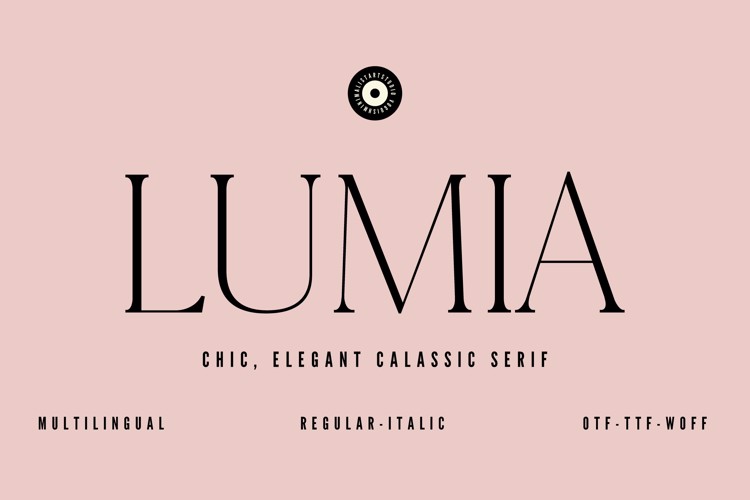
LUMIA Font
๐จ Font Name: Lumia by Minimalist Art Studio
๐จ Font Description: Lumia is a chic serif with multilingual supportโperfect for beauty branding, editorial elegance, and classic packaging.
โ Complete Latin set + multilingual diacritics
โ Alternates, stylistic sets & ligatures
โ Numbers, small caps, and extended punctuation
โ Bonus italics and family styles